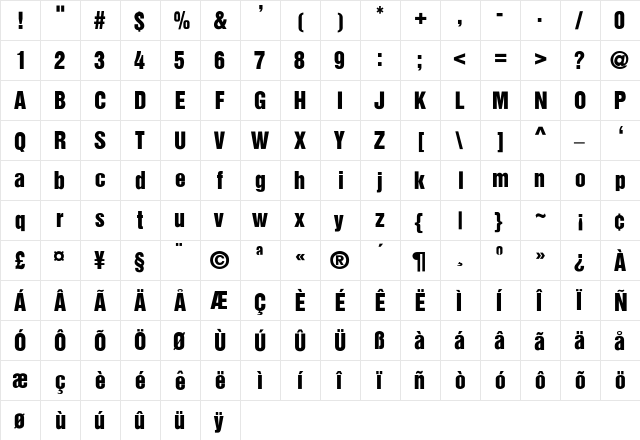
PartridgeInserat-Roman-SemiBold Regular
Design Context for PartridgeInserat-Roman-SemiBold Typeface
PartridgeInserat-Roman-SemiBold takes a measured approach to typography — its balanced proportions and neutral character make it a reliable workhorse for both digital and print work. Its bold stroke weight gives it real presence on the page.